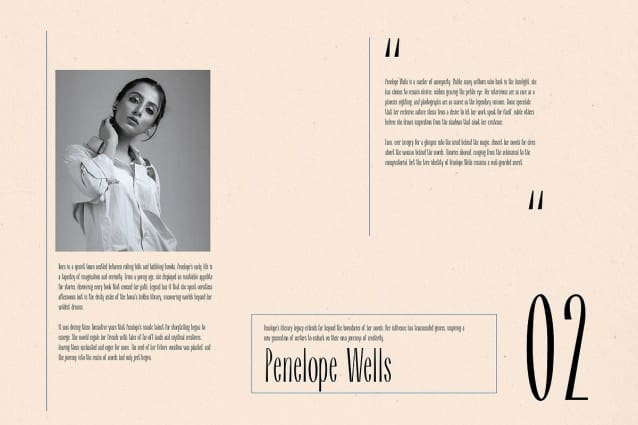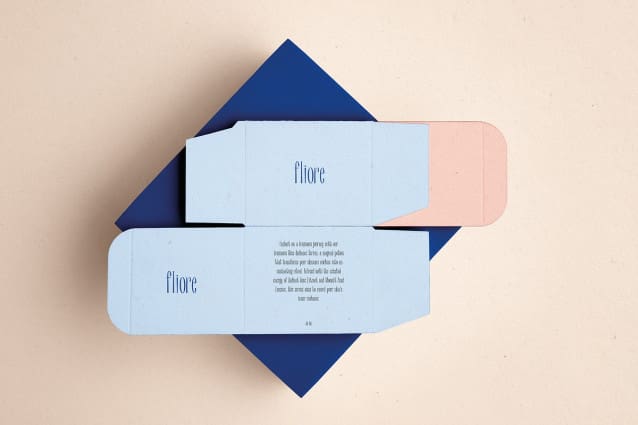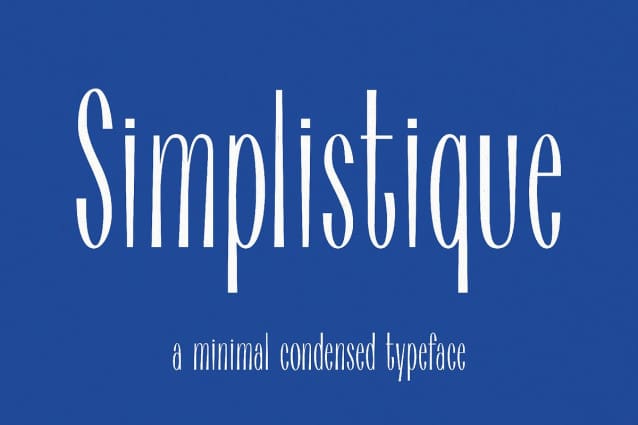
Simplistique Font
Simplistique Font a masterpiece of understated design, embraces the beauty of simplicity, proving that less can indeed be more. Simplistique’s condensed form factor is not just a stylistic choice, but a statement – a commitment to clarity and efficiency in communication.
Crafted with meticulous attention to detail, each character in Simplistique Font is a study in precision. The typeface boasts clean lines and balanced proportions, ensuring that it remains legible and impactful even in the most constrained spaces. This makes Simplistique not just aesthetically pleasing, but also highly functional, adaptable to a wide range of applications, from elegant branding to sleek digital interfaces.
What truly sets Simplistique apart is its ability to convey a sense of modern sophistication without the need for embellishments. Its uncluttered appearance, coupled with a subtle strength in its slender forms, lends a contemporary edge that resonates with current design trends. In essence, it is more than just a typeface; it’s a testament to the power of minimalism, a tool for designers who seek to make a bold statement with graceful subtlety.